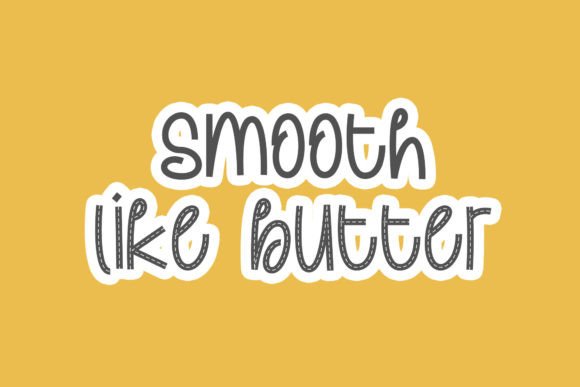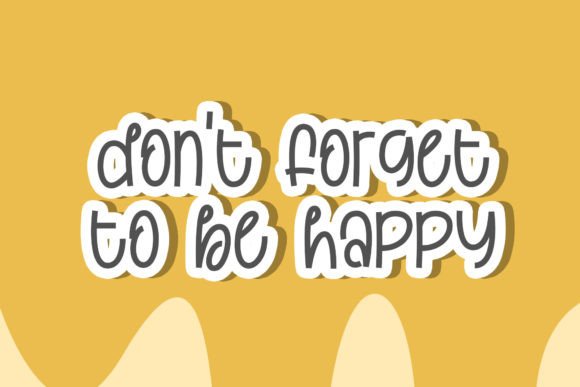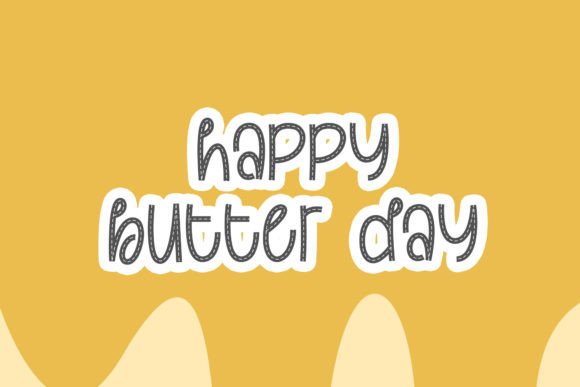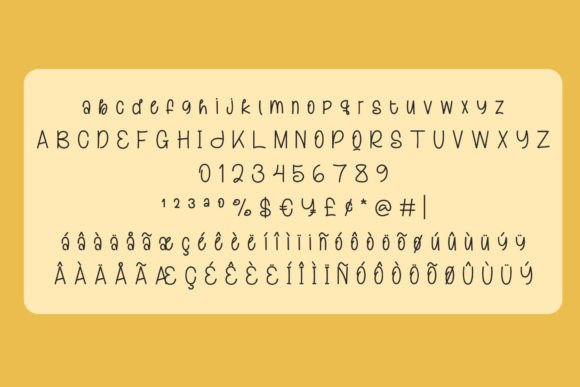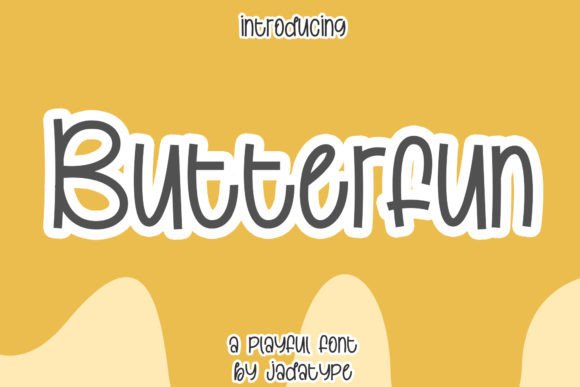
Introducing Butterfun Font: The Playful Handwritten Font for Creative Projects
Are you a designer, crafter, or social media enthusiast looking for a unique and playful font to elevate your creative projects? Look no further than Butterfun Font, a charming handwritten font that’s perfect for branding, crafts, clothing designs, social media, and more.
What is Butterfun Font?
Butterfun Font is a carefully crafted handwritten font that exudes playfulness and whimsy. Its irregular lines and curves give it a delightfully organic feel, making it perfect for projects that require a personal touch. Whether you’re designing a logo, creating a social media graphic, or crafting a handmade product, Butterfun Font is sure to add a dash of personality to your work.
Key Features of Butterfun Font
- Handwritten with love: Butterfun Font is a genuine handwritten font, created with care and attention to detail to ensure a natural, effortless look.
- Playful lines: The font’s irregular lines and curves give it a playful, whimsical feel that’s perfect for creative projects.
- Versatile: Butterfun Font is suitable for a wide range of applications, from branding and advertising to crafts, clothing designs, and social media.
- Easy to read: Despite its playful nature, Butterfun Font is surprisingly easy to read, making it perfect for body text and captions.
Use Cases for Butterfun Font
Butterfun Font is an incredibly versatile font that can be used in a variety of creative projects. Here are some ideas to get you started:
- Branding and logos: Use Butterfun Font to create a unique and memorable logo that reflects your brand’s personality.
- Crafts and DIY projects: Add a personal touch to your handmade crafts, such as knitted items, jewelry, or ceramics, with Butterfun Font.
- Clothing designs: Create eye-catching apparel, such as t-shirts, hoodies, or tote bags, with Butterfun Font.
- Social media graphics: Use Butterfun Font to create engaging social media graphics, such as Instagram posts, Facebook covers, or Twitter headers.
- Stationery and invitations: Add a touch of whimsy to your stationery, invitations, or greeting cards with Butterfun Font.
Why Choose Butterfun Font?
With so many fonts available, why choose Butterfun Font? Here are just a few reasons why designers and crafters love this font:
- Unique and distinctive: Butterfun Font is a one-of-a-kind font that will help your projects stand out from the crowd.
- High-quality design: Butterfun Font is designed with care and attention to detail, ensuring a high-quality look that’s perfect for professional projects.
In conclusion, Butterfun Font is a delightful handwritten font that’s perfect for designers, crafters, and social media enthusiasts looking to add a touch of whimsy to their creative projects. With its playful lines, versatility, and ease of use, Butterfun Font is an excellent choice for anyone looking to elevate their designs and crafts. So why wait? Try Butterfun Font today and see the difference it can make in your creative projects!